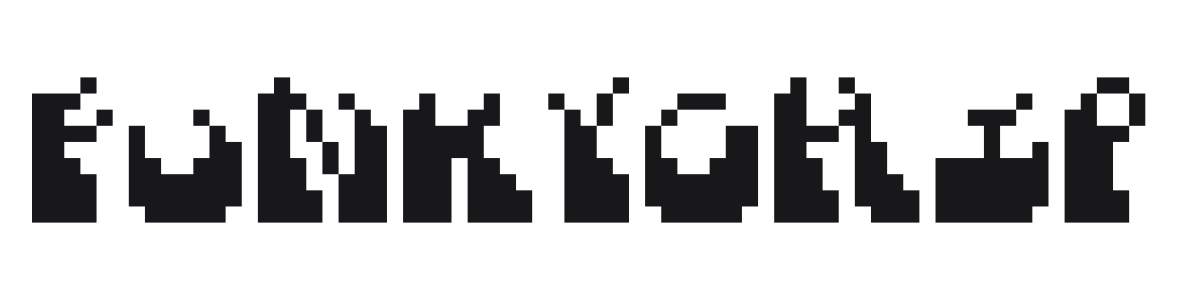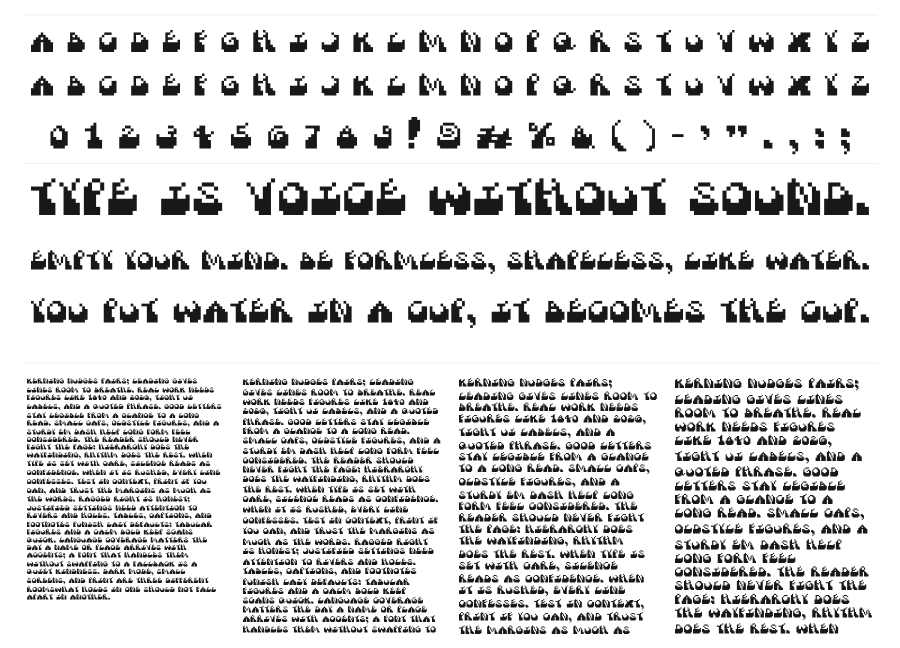
FunkyChip
FunkyChip is a bold pixel-art display font built from chunky square blocks with classic 8-bit arcade energy. Characters bounce at irregular heights, giving lines of text a lively, almost animated rhythm. The heavy weight and stair-stepped curves make it a natural headline choice for game titles, music projects, and anything that leans into retro digital culture.